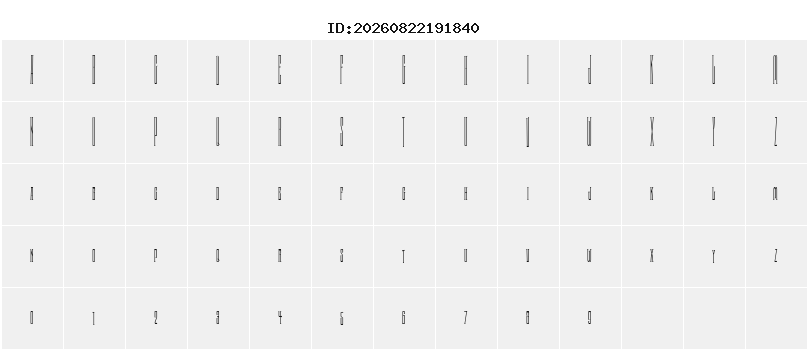
• Font Name: Scaffold
• Full Font Name: Scaffold
• PostScript Name: Scaffold
About Scaffold.ttf
Scaffold.ttf is a modern, elegant sans-serif font designed for ultimate readability and visual harmony. Perfect for branding, headlines, web design, and print materials.